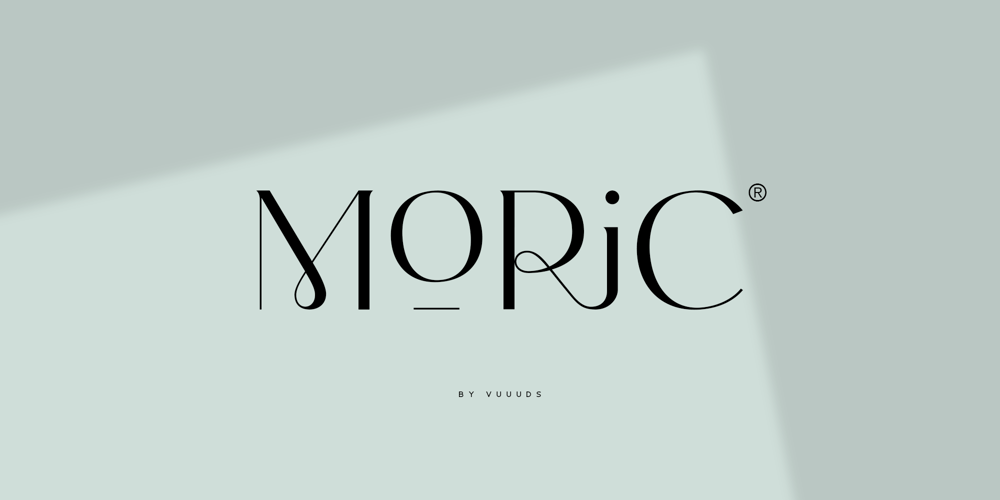
Moric
Moric font
Moric Font Family was designed by Agung Syaifudin and published by vuuuds. Moric contains 1 styles and family package options. Introducing Moric Font!Moric is modern experimental sans serif font, every single letters have been uniquely crafted.This font including beautiful alternate glyph. You can access the alternate glyph via Font Book (Mac user) or Windows Character Map (Windows user), I’ve been put the link tutorial inside the zip file.